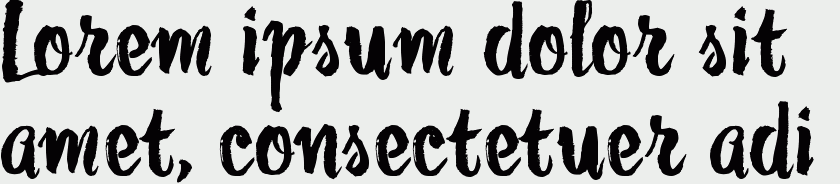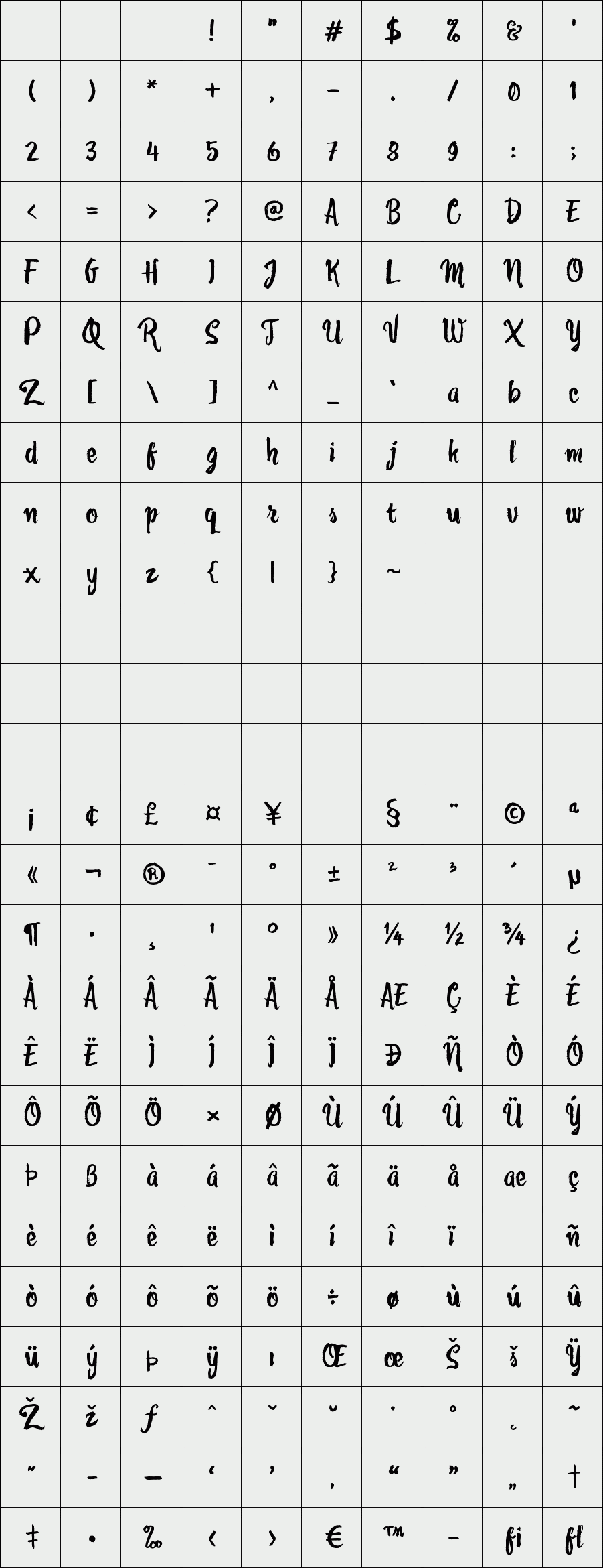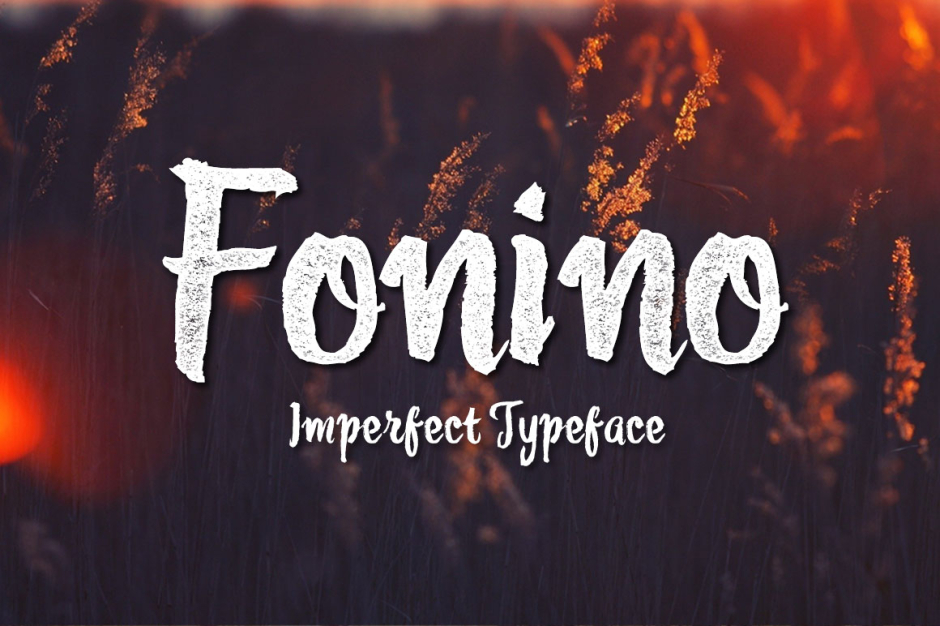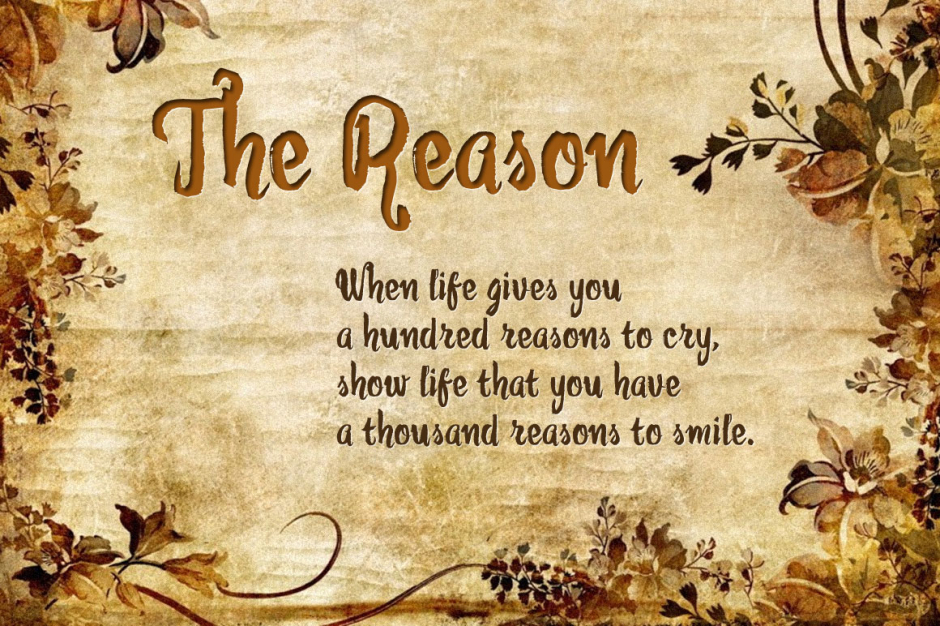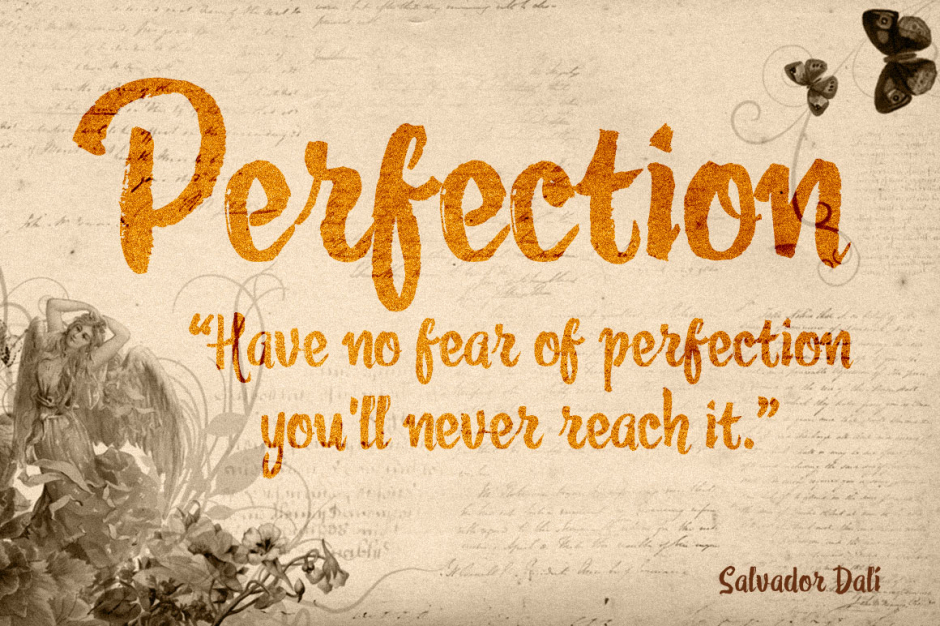
Fonino
Fonino is based on handdrawn typeface by unprofessional typographer using brush pen. This is imperfect calligraphy style with natural sense. Sometimes you want to see a typography that look rough and imperfect. You can create different design using Fonino that comes with alternates on uppercase.